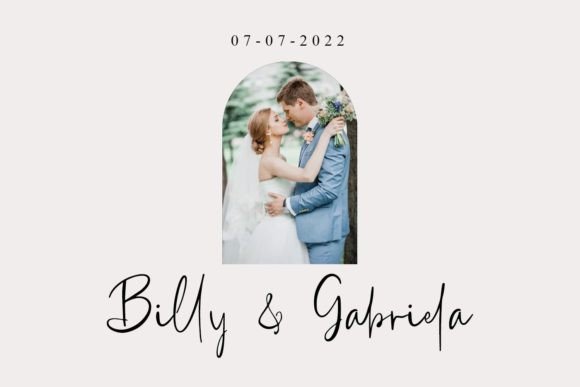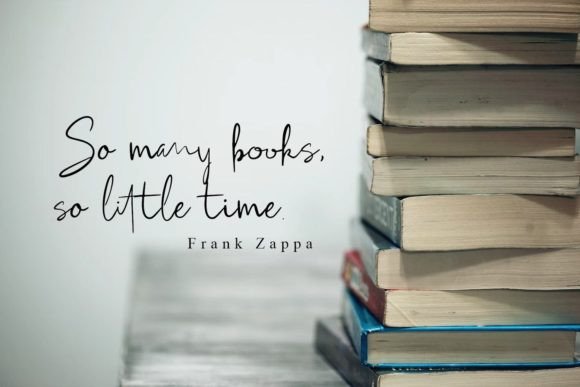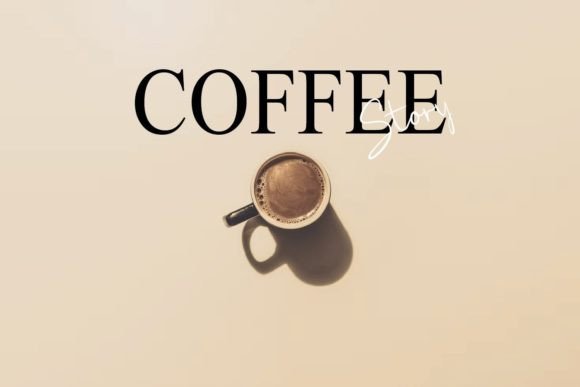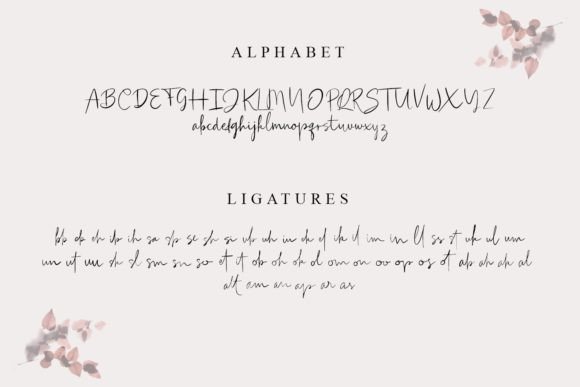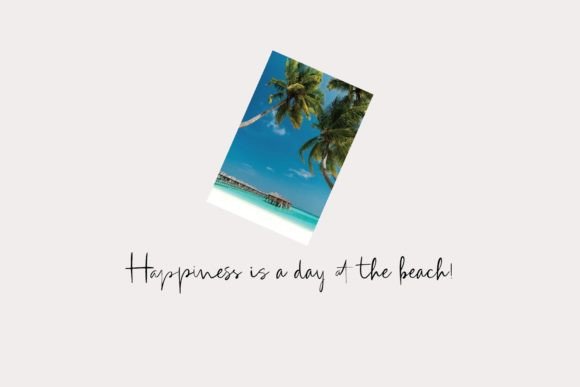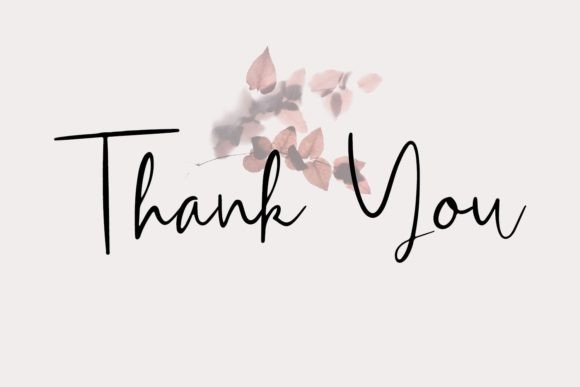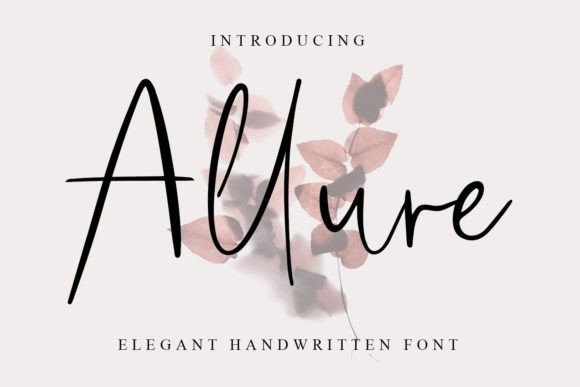
Introducing Allure Font: Elevate Your Designs with Elegance
Are you on the hunt for a font that exudes elegance and sophistication? Look no further than the Allure Font. This beautiful, handwritten font is perfect for a wide range of design projects, from formal and informal designs to attractive logos, branding, quotes, and more. With its unique charm and character, Allure Font is sure to make your creative projects stand out from the crowd.
What Makes Allure Font So Special?
Allure Font is a stunning example of elegant typography. Its handwritten style gives it a personal and approachable feel, making it perfect for designs that require a touch of warmth and personality. Whether you’re working on a formal project, such as a luxury brand’s logo, or a more informal design, like a social media graphic, Allure Font is sure to impress.
One of the standout features of Allure Font is its PUA (Private Use Area) encoding. This means that you can access all glyphs and ligatures with ease, giving you complete creative control over your designs. With PUA encoding, you can effortlessly navigate the font’s extensive character set, including alternative letters, swashes, and more.
Endless Design Possibilities with Allure Font
The versatility of Allure Font is one of its most significant advantages. This font can be used in a wide range of design projects, including:
- Quotes and Typography: Add a touch of elegance to your quotes, posters, and typography projects with Allure Font’s beautiful, flowing script.
- Social Media Graphics: Elevate your social media presence with eye-catching graphics that feature Allure Font’s unique charm.
- Packaging and Labels: Make your products stand out on store shelves with custom packaging and labels that feature Allure Font.
- Invitations and Stationery: Create beautiful, one-of-a-kind invitations and stationery that showcase your personal style.
Why Choose Allure Font?
With so many fonts available, why choose Allure Font? Here are just a few reasons why designers and crafters love this elegant handwritten font:
- Unique and Eye-Catching: Allure Font’s distinctive style is sure to grab attention and leave a lasting impression.
- Elegant and Sophisticated: This font exudes elegance and sophistication, making it perfect for formal and informal designs.
- Easy to Use: With PUA encoding, accessing glyphs and ligatures is a breeze, making it easy to get creative with your designs.
- Versatile: Allure Font can be used in a wide range of design projects, from logos and branding to quotes and typography.
Get Ready to Elevate Your Designs with Allure Font
In conclusion, Allure Font is a beautiful and versatile font that is perfect for designers and crafters looking to add a touch of elegance and sophistication to their designs. With its unique charm, PUA encoding, and endless design possibilities, Allure Font is sure to inspire creativity and take your designs to new heights.